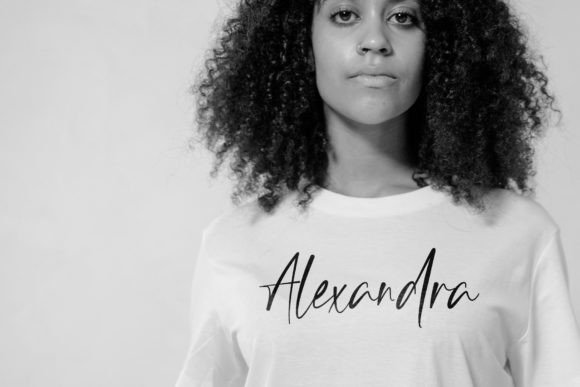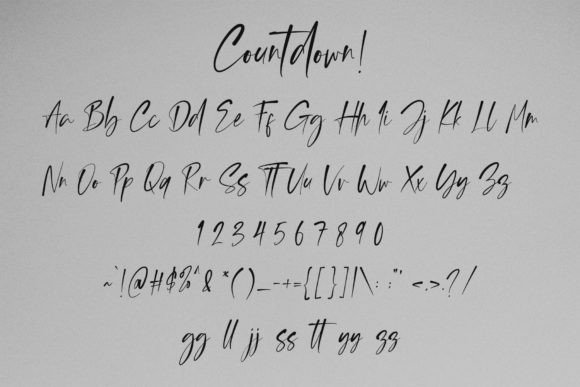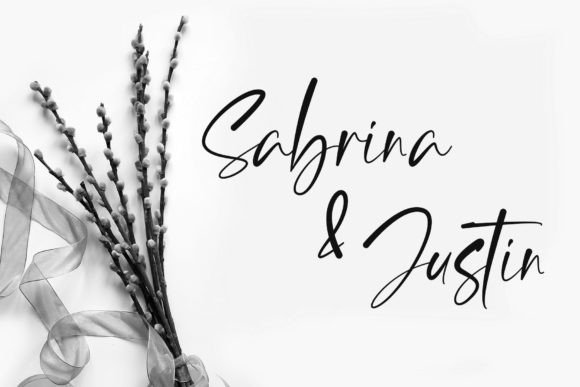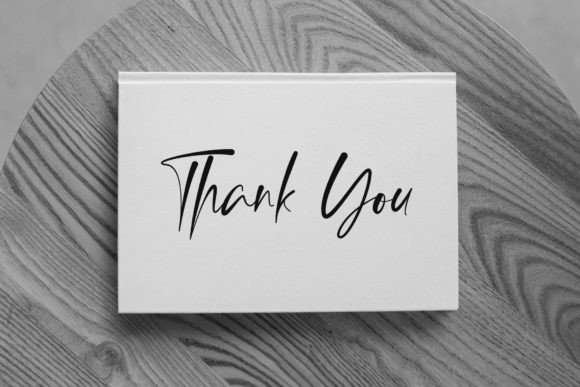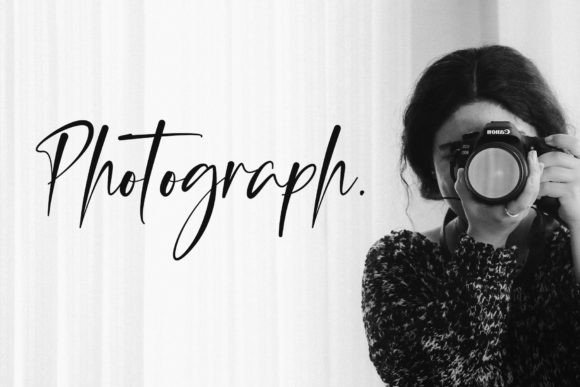
Introducing Countdown Font: Elevate Your Designs with Elegance
In the world of design, fonts play a pivotal role in conveying messages, evoking emotions, and creating lasting impressions. For designers and crafters seeking to infuse their projects with a touch of luxury and sophistication, the Countdown Font is an exceptional choice. This elegant signature script font is designed to add a classy flair to various design endeavors, making it perfect for a wide range of applications.
What is Countdown Font?
Countdown Font is a meticulously crafted script font that exudes elegance and refinement. Its luxurious and stunning style is tailored to meet the needs of designers who aim to create visually appealing and high-end designs. Whether you’re working on photography projects, invitations, quotes, t-shirts, advertising materials, product designs, labels, or more, Countdown Font is the perfect companion to elevate your work.
Key Features of Countdown Font
- Elegant Signature Style: Countdown Font boasts a beautiful, flowing script style that mimics the elegance of handwritten signatures, perfect for creating sophisticated designs.
- Luxurious and Stunning: With its refined and classy appearance, this font is sure to add a luxurious touch to any project, making it stand out from the crowd.
- Versatile Applications: From photography and invitations to t-shirts and product design, Countdown Font’s versatility knows no bounds, making it a valuable addition to any designer’s toolkit.
- Easy to Read and Aesthetic: Despite its elegant and cursive nature, Countdown Font maintains a high level of readability, ensuring that your messages are conveyed clearly and effectively.
Use Cases for Countdown Font
The possibilities are endless with Countdown Font. Here are some popular use cases where this font truly shines:
- Photography: Add a touch of sophistication to your photo captions, titles, or watermarks with Countdown Font, enhancing the overall aesthetic of your photography projects.
- Invitations: Create stunning invitations for weddings, parties, or corporate events that set the tone for an elegant and memorable experience.
- Quotes and Typography: Use Countdown Font to highlight inspirational quotes, phrases, or poems, making them visually appealing and impactful.
- T-Shirts and Merchandise: Design unique and stylish apparel and merchandise that stands out with the luxurious feel of Countdown Font.
- Advertising and Marketing: Elevate your advertising materials, such as brochures, flyers, and posters, with a font that communicates luxury and class.
- Product Design and Labels: Enhance your product packaging and labels with Countdown Font, giving your brand a sophisticated and high-end look.
Tips for Using Countdown Font Effectively
To maximize the impact of Countdown Font in your designs, consider the following tips:
- Pair with Complementary Fonts: Combine Countdown Font with simpler, sans-serif fonts for contrast and visual hierarchy in your designs.
- Adjust Size and Color: Experiment with different sizes and colors to emphasize certain words or phrases, adding depth to your design.
- Use in Moderation: While Countdown Font is elegant, using it sparingly can make it more impactful. Balance it with other design elements for a cohesive look.
| Font Name | Countdown Font |
| Author | Artkenza |
Countdown Font is a versatile and elegant script font that can significantly enhance the aesthetic of your designs. Its luxurious style, combined with its readability and versatility, makes it an excellent choice for designers and crafters across various projects. By incorporating Countdown Font into your design toolkit, you’ll be well-equipped to create stunning, high-end designs that leave a lasting impression.